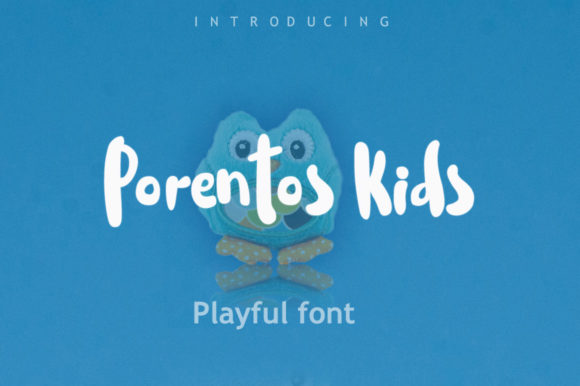
A Touch of Whimsy and Charm: Let Porentos Kids Font Take Your Designs to New Heights! Discover the Enchanting World of Fonts!
Dive into the delightful realm of childlike charm and playful smiles with Porentos Kids Font, a display font that's sure to captivate your imagination. Designed by the talented team at Ayyart Studio, this extraordinary font family radiates a captivating aura of warmth and happiness. Porentos Kids Font stands as the perfect choice for fashioning captivating quotes, enchanting headers, vibrant logos, or any creative endeavor that hungers for a joyous and playful touch.
Step into a world where every letter, symbol, and punctuation mark dances with life, conveying a symphony of emotions and sparking the spirit of childhood wonder. Porentos Kids Font boasts an array of features that will set your designs apart from the mundane. Its bold, rounded forms evoke a sense of innocence and endless imagination, while its fluid, cursive strokes inject a touch of grace and elegance. Each character exudes a sense of playfulness and lightness, beckoning you to explore the realm of creativity.
Unleash Your Creative Spirit with Porentos Kids Font!
Express Your Unique Personality: Express your individuality with Porentos Kids Font, allowing your creative spirit to soar. Dive into a world where your imagination knows no bounds, where characters come alive and stories unfold with every letter. Porentos Kids Font is more than just a font; it's a gateway to a captivating world where your ideas take center stage.
Ignite Smiles and Warm Hearts: Porentos Kids Font possesses an uncanny ability to evoke smiles and warm hearts. Its charming personality shines through in every word, inviting your audience to embark on a journey of pure joy. From playful school projects to captivating café logos, Porentos Kids Font brings a touch of magic to every endeavor.
Leave a Lasting Impression: Porentos Kids Font leaves an unforgettable impression, ensuring your designs stand out from the crowd. Whether you're a seasoned designer or just starting your creative journey, this font will elevate your designs to new heights. Its versatility knows no bounds, making it perfect for a kaleidoscope of projects, from whimsical invitations to playful social media posts.
Choose Porentos Kids Font Today and Step into a World of Creative Delight!